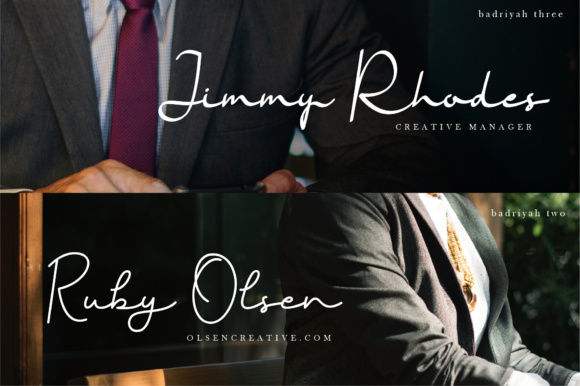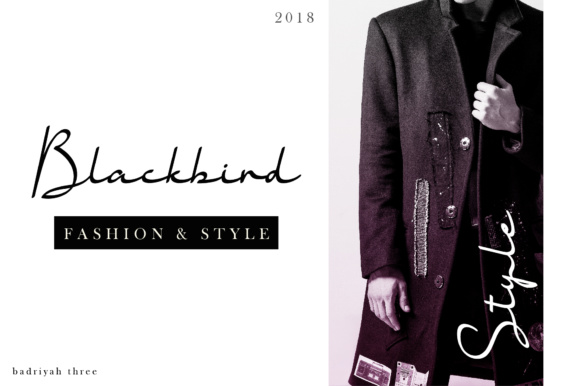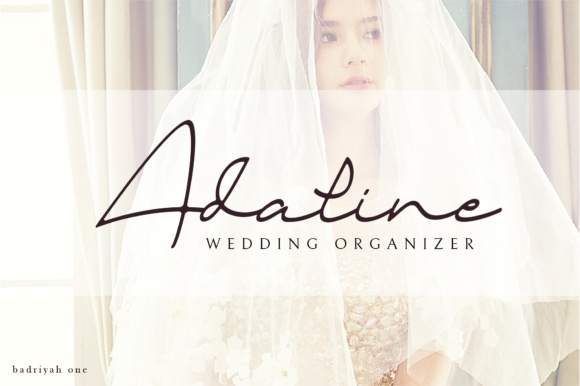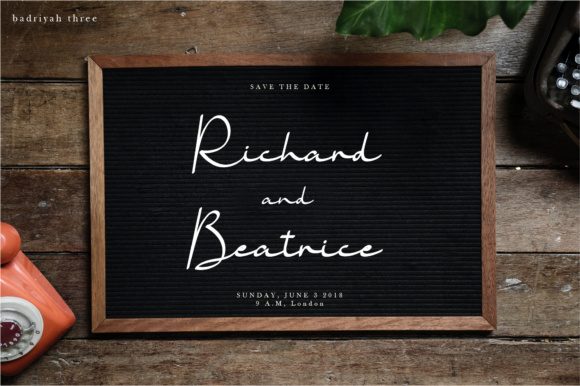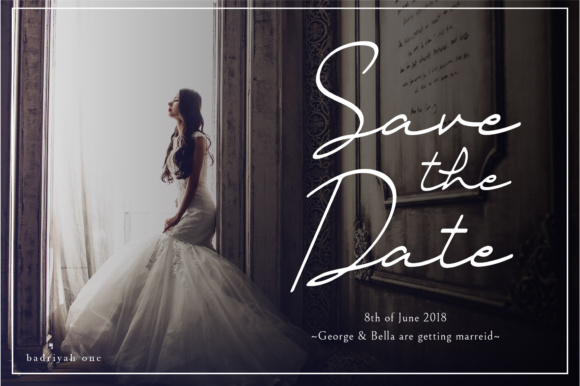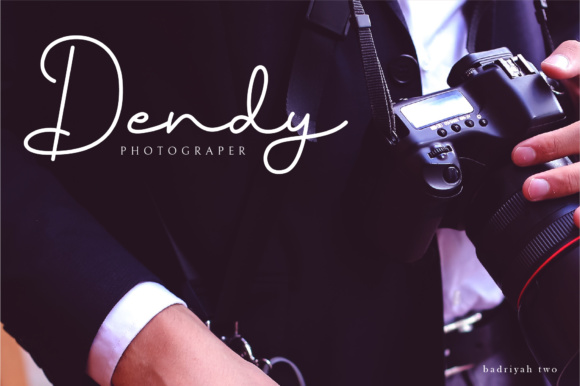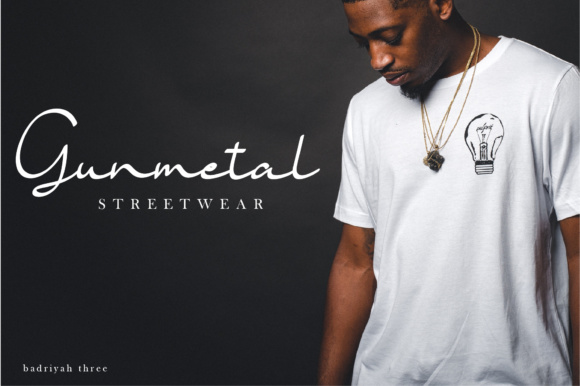
Badriyah Font
About Badriyah Font
Badriyah is a beautiful and classy handwritten font, perfect for use in signatures and logotype projects. This font has 3 different versions, so you can create compelling and unique designs.